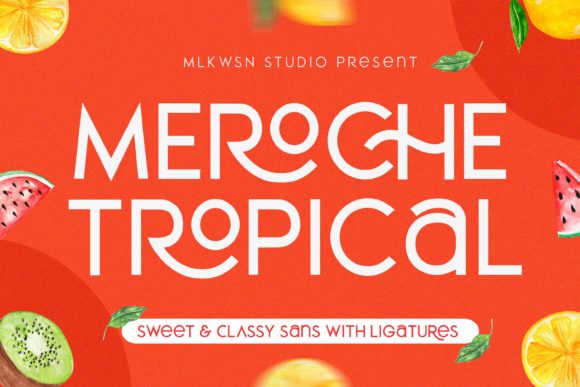
Meroche Font: A Sweet and Classy Sans Serif Family
Meroche font is a modern and elegant sans serif family that has captured the hearts of designers and typography enthusiasts alike. With its unique feel and classy appearance, Meroche has become a popular choice for various design projects, from branding and advertising to packaging and digital media. In this article, we’ll explore the features and characteristics of Meroche font, and why it’s a great choice for your next design project.
The Story Behind Meroche Font
Meroche font is a relatively new addition to the world of typography, but it has quickly gained popularity due to its distinctive and elegant design. The font was created with the goal of providing a modern and sophisticated sans serif family that would cater to the needs of designers looking for a unique and versatile typeface.
Key Features of Meroche Font
Meroche font boasts a range of features that make it stand out from other sans serif families. Some of its key characteristics include:
- Unique feel: Meroche has a distinctive feel that sets it apart from other sans serif fonts. Its elegant and modern design makes it perfect for projects that require a touch of sophistication.
- Sweet and classy: Meroche is a sweet and classy font that exudes a sense of refinement and poise. Its clean lines and simple shapes make it easy to read and understand.
- Modern and elegant: Meroche is a modern and elegant font that is perfect for projects that require a contemporary and sophisticated look.
- Versatile: Meroche is a versatile font that can be used for a wide range of design projects, from branding and advertising to packaging and digital media.
The Benefits of Using Meroche Font
Meroche font offers a range of benefits that make it an attractive choice for designers. Some of the benefits of using Meroche font include:
- Improved readability: Meroche font is designed to be easy to read and understand, making it perfect for projects that require clear communication.
- Enhanced aesthetics: Meroche font has a modern and elegant design that can enhance the visual appeal of your design project.
- Flexibility: Meroche font is a versatile typeface that can be used for a wide range of design projects, from print to digital media.
- Unique identity: Meroche font has a distinctive and unique feel that can help your design project stand out from the crowd.
Meroche Font in Branding and Advertising
Meroche font is a popular choice for branding and advertising projects due to its modern and elegant design. The font can be used to create a sophisticated and refined brand identity that resonates with target audiences. Some of the ways Meroche font can be used in branding and advertising include:
- Logos: Meroche font can be used to create a unique and memorable logo that reflects the values and personality of your brand.
- Headings: Meroche font can be used to create bold and eye-catching headings that grab the attention of your target audience.
- Body copy: Meroche font can be used for body copy due to its excellent readability and legibility.
Meroche Font in Packaging Design
Meroche font can also be used in packaging design to create a modern and sophisticated look. The font can be used to label products, create product descriptions, and design packaging materials. Some of the benefits of using Meroche font in packaging design include:
- Enhanced aesthetics: Meroche font can enhance the visual appeal of your packaging design and make your product stand out on store shelves.
- Improved communication: Meroche font can be used to communicate important information about your product, such as ingredients, instructions, and branding.
Meroche Font in Digital Media
Meroche font can also be used in digital media, such as websites, social media, and mobile apps. The font can be used to create a consistent brand identity across digital platforms and enhance the user experience. Some of the benefits of using Meroche font in digital media include:
- Improved readability: Meroche font is designed to be easy to read on digital screens, making it perfect for digital media.
- Enhanced aesthetics: Meroche font can enhance the visual appeal of your digital media and create a modern and sophisticated look.
Meroche font is a sweet and classy sans serif family that offers a unique feel and modern elegance. With its versatile design and wide range of applications, Meroche font is a great choice for designers looking for a sophisticated and refined typeface. Whether you’re working on a branding project, packaging design, or digital media, Meroche font is sure to impress.
- What is Meroche font? Meroche font is a sweet and classy sans serif family with a unique feel and modern elegance.
- What are the key features of Meroche font? Meroche font boasts a range of features, including a unique feel, sweet and classy design, modern and elegant appearance, and versatility.
- What are the benefits of using Meroche font? The benefits of using Meroche font include improved readability, enhanced aesthetics, flexibility, and a unique identity.
- Can Meroche font be used in branding and advertising? Yes, Meroche font can be used in branding and advertising to create a sophisticated and refined brand identity.